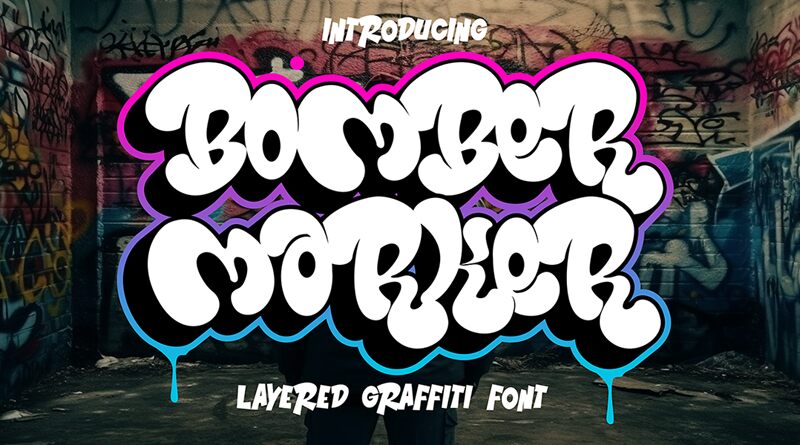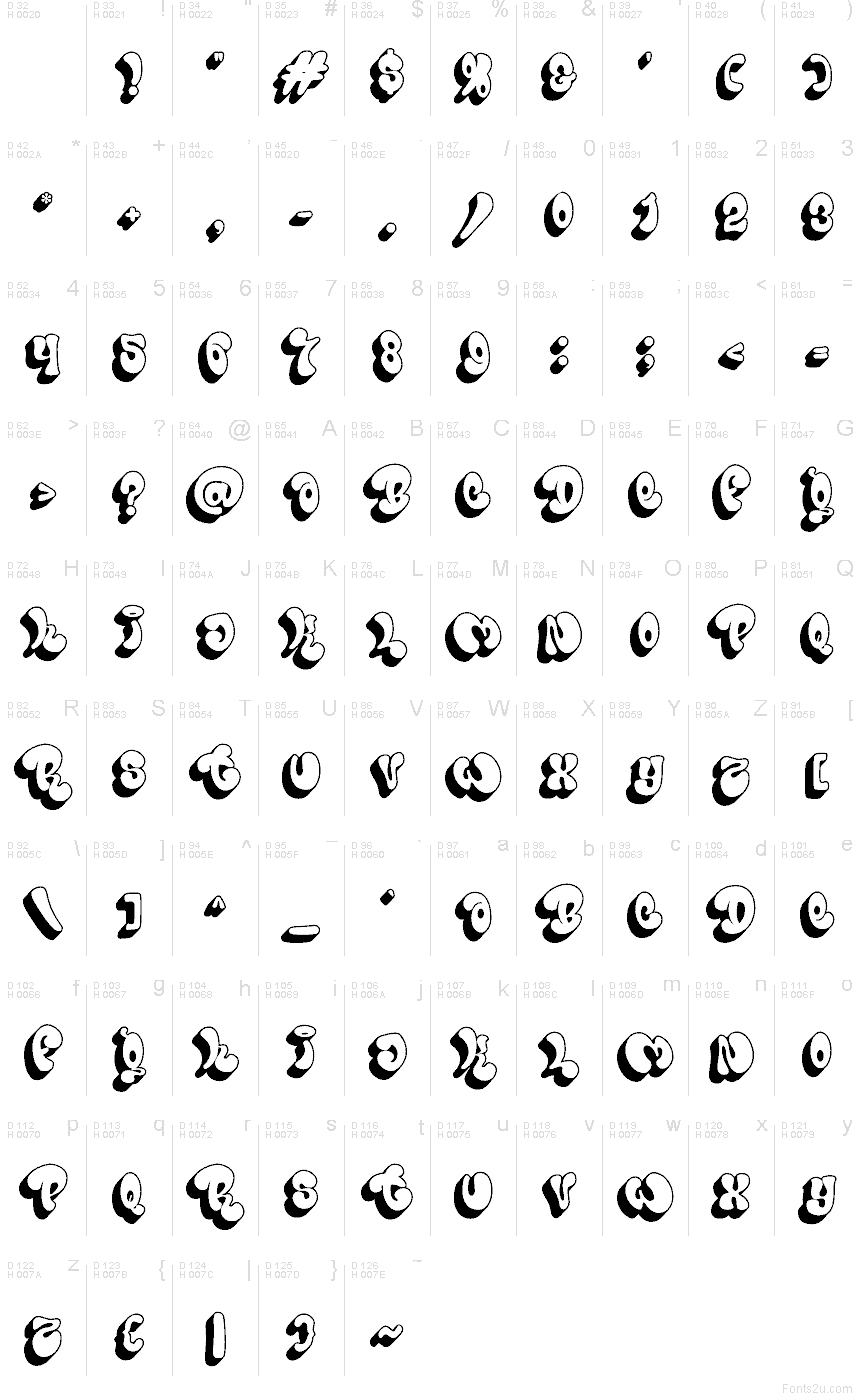
Bomber Marker- Shadow
Bomber Marker Shadow font by Saepul Milah of CikareotypeStudio x figureeStudio is a free graffiti font. It’s all plush, ballooned marker strokes with a chunky shadow that makes the letters feel lifted off the wall—like fresh paint catching streetlight. The rhythm is bouncy and bold, with tight spacing that keeps the wordmark looking like one confident tag.
Using Bomber Marker- Shadow, you’ll get instant punch on streetwear logos, skate and BMX graphics, poster headlines, music cover art, sticker packs, event flyers, and YouTube thumbnails. This free font also shines on packaging for edgy snacks or drinks when you want a loud shelf shout. Pair it with a clean geometric sans for the details, and give it breathing room at larger sizes so the shadow stays crisp.